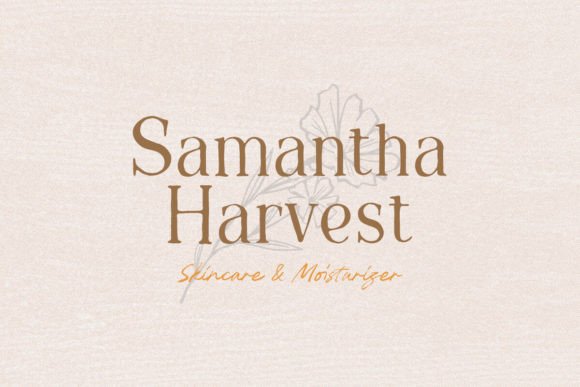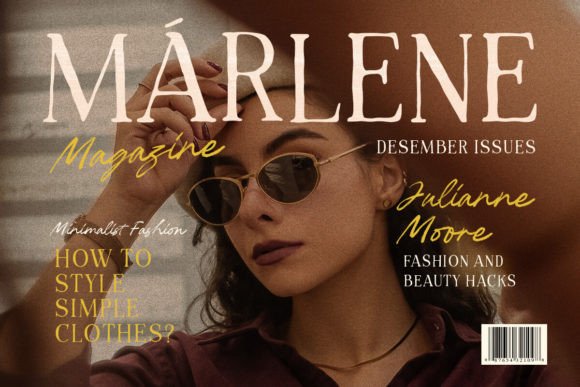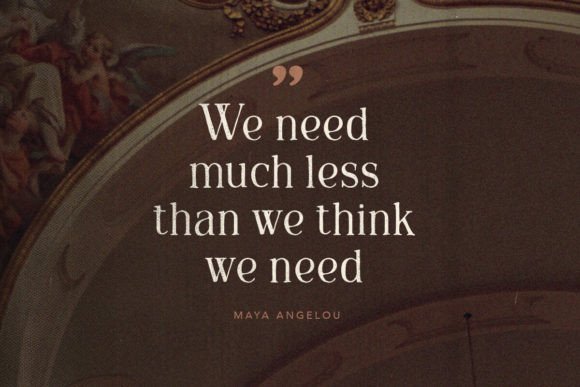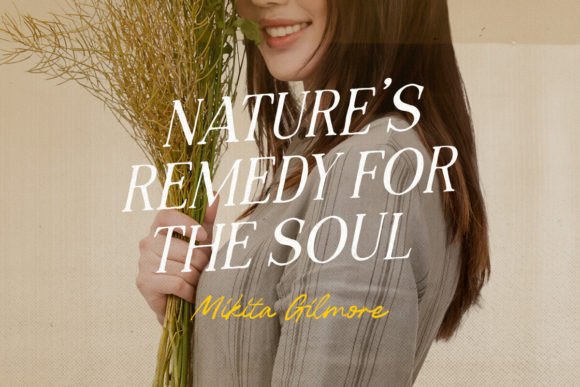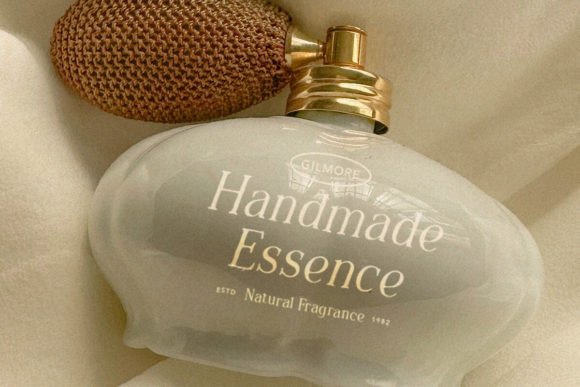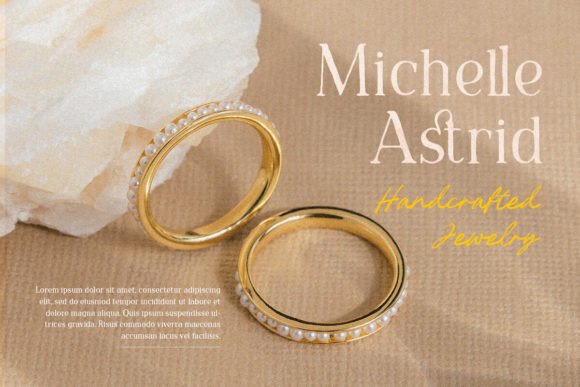
Introduction to Mikita Gilmore Font
Mikita Gilmore is a sophisticated serif font with an authentic handdrawn style.
Perfectly applied to various formal projects such as invitations, labels, logos, magazines, books, greeting / wedding cards, packaging, fashion, make up, stationery, novels, labels or any type of advertising purpose .